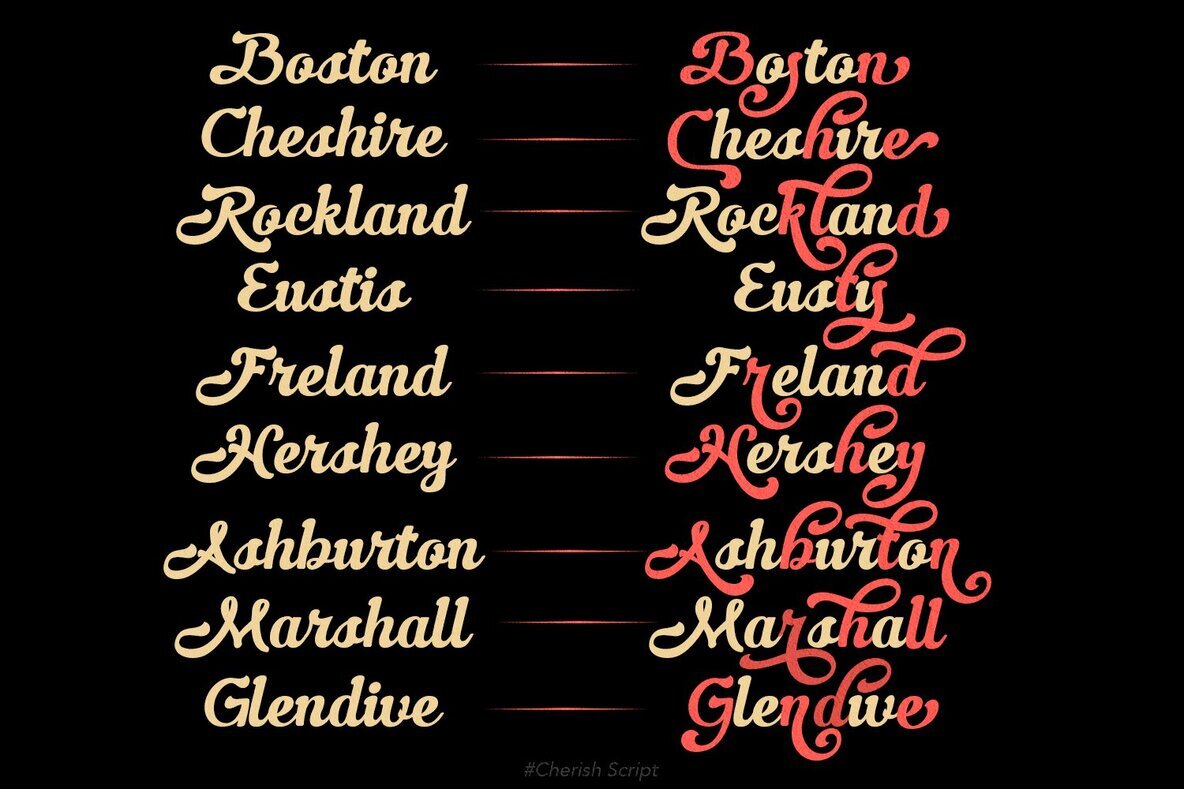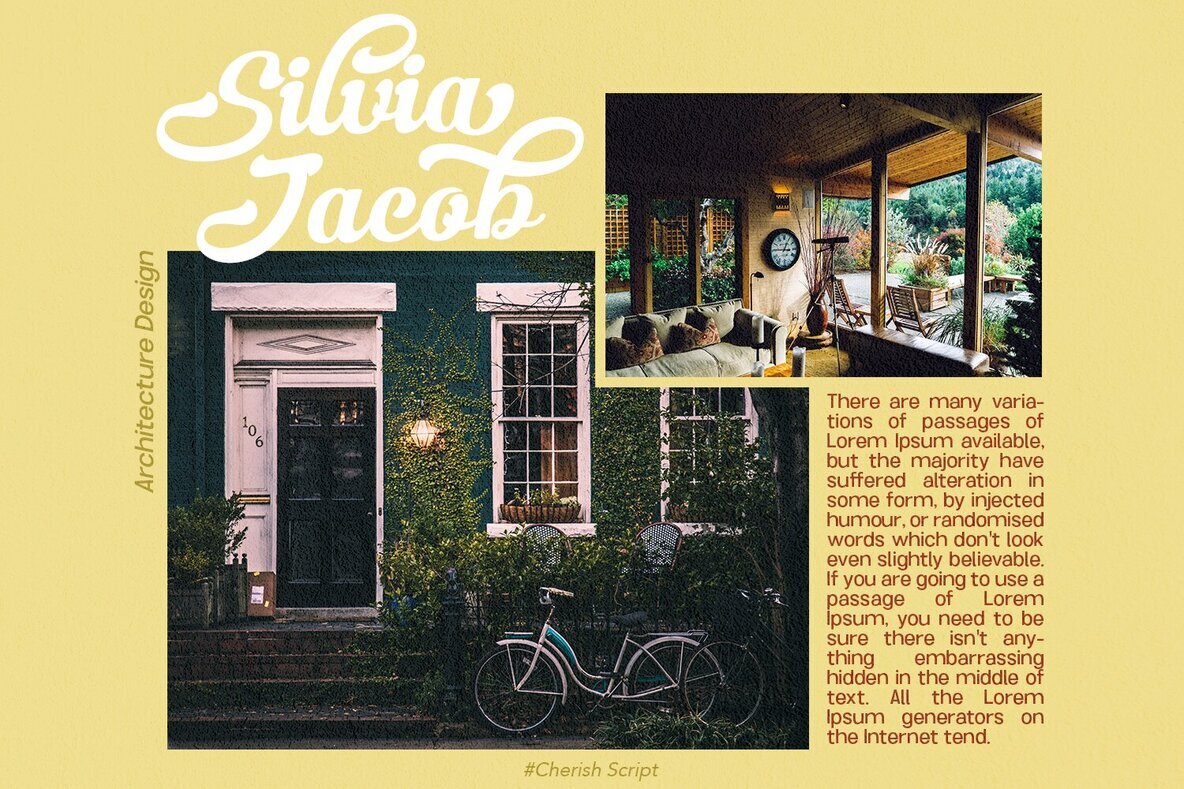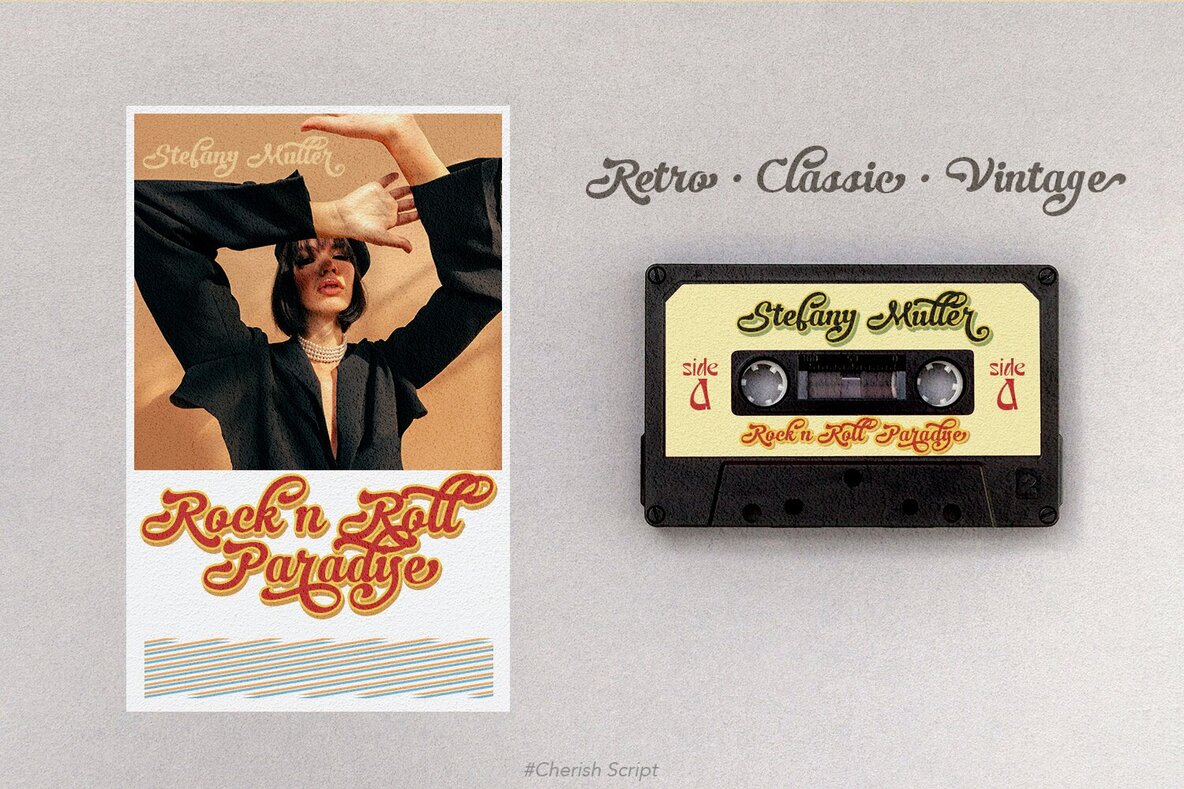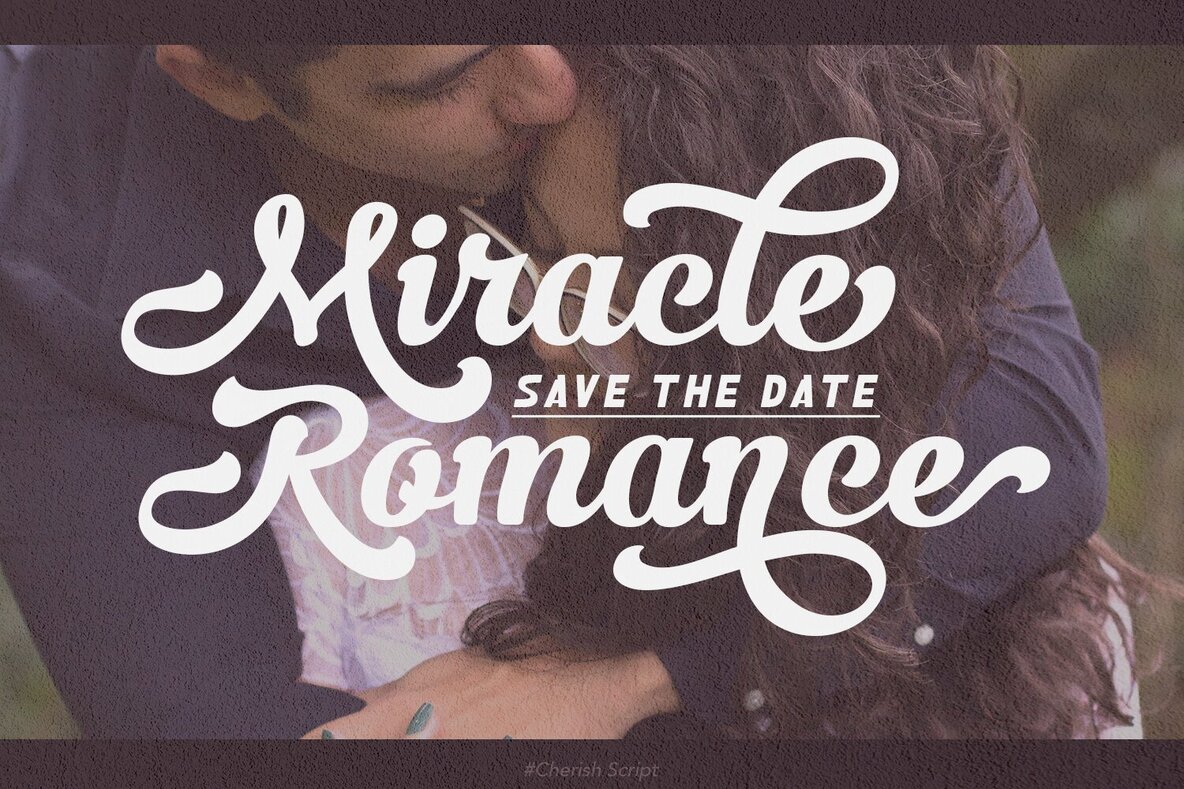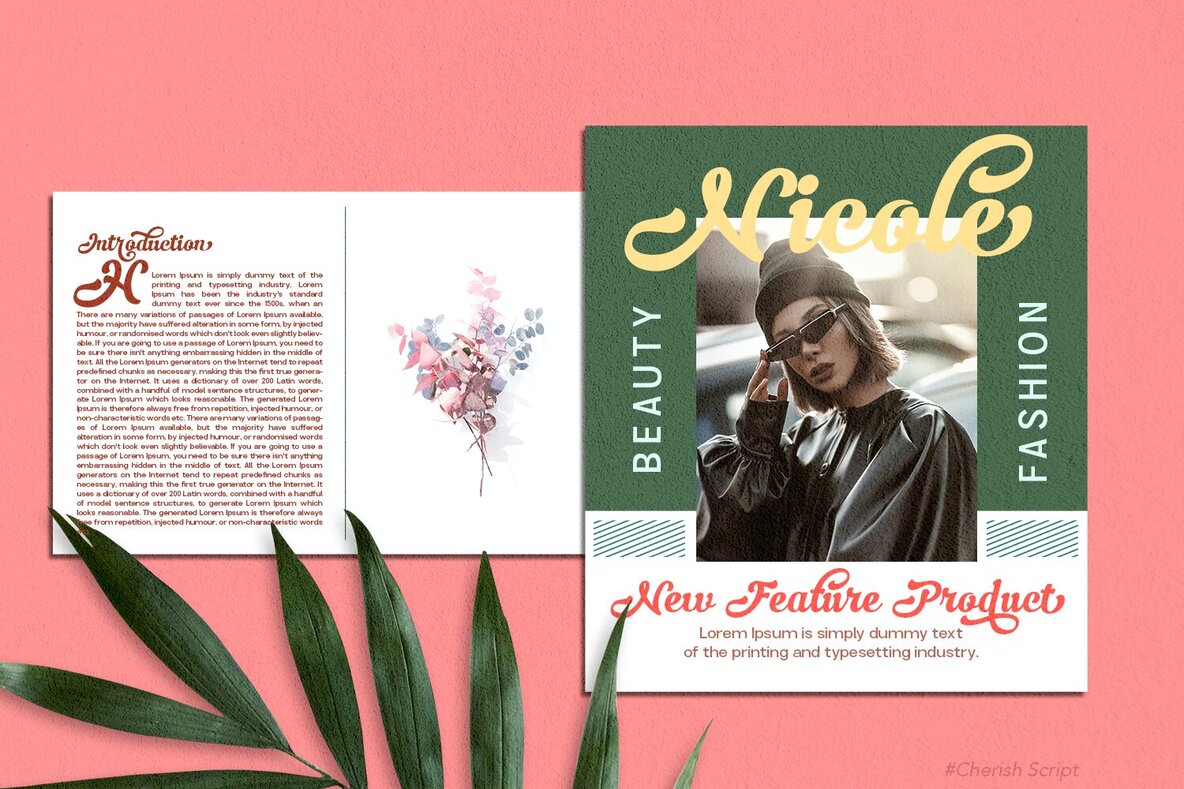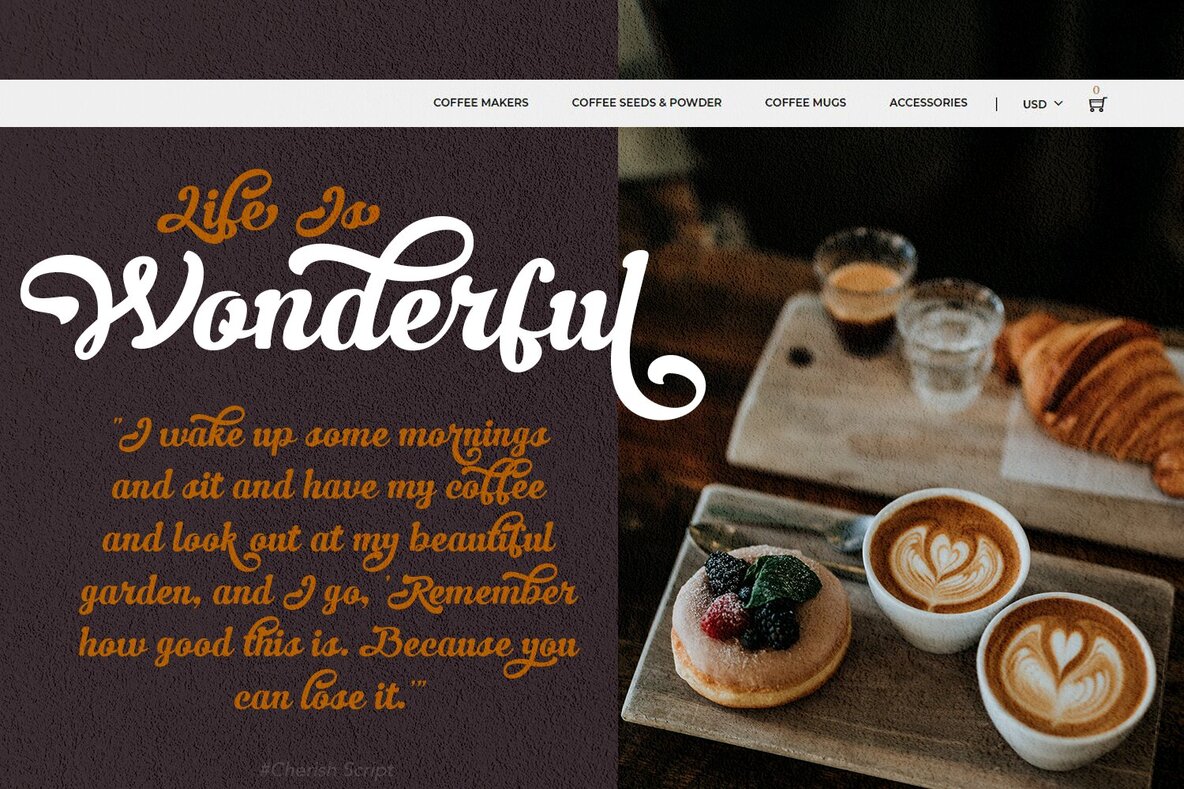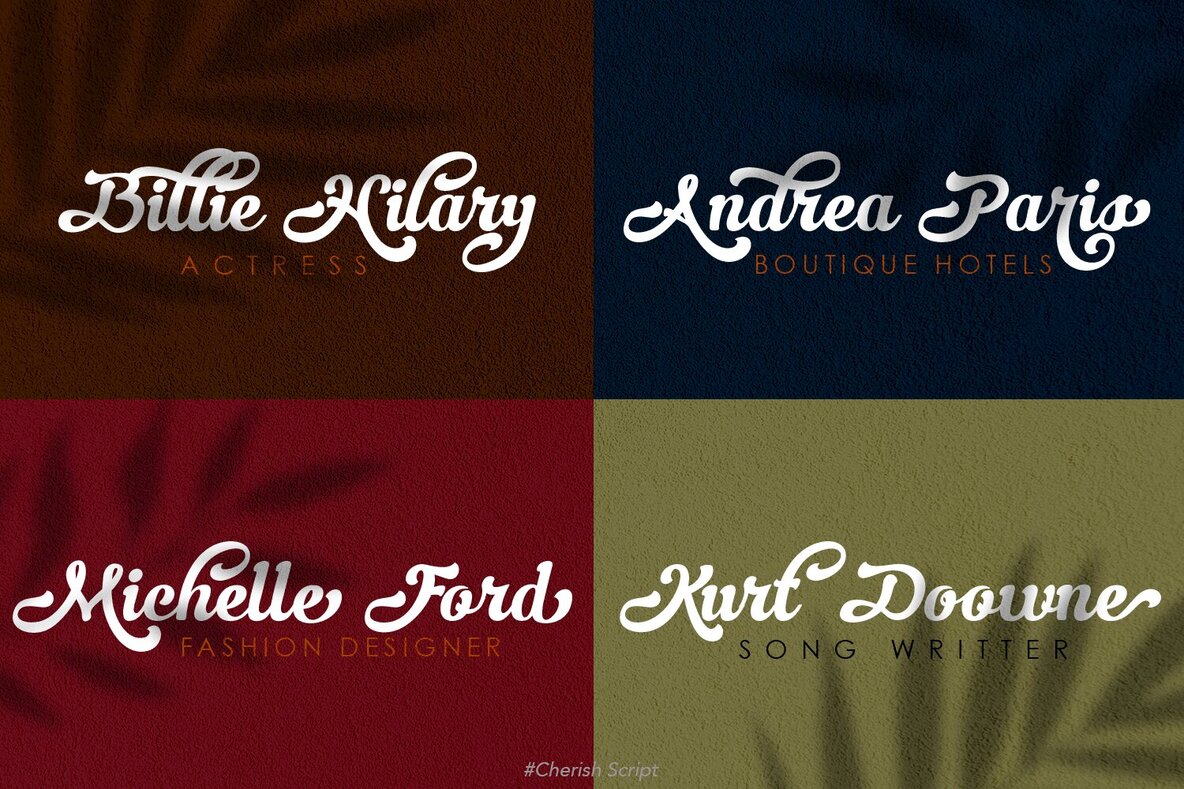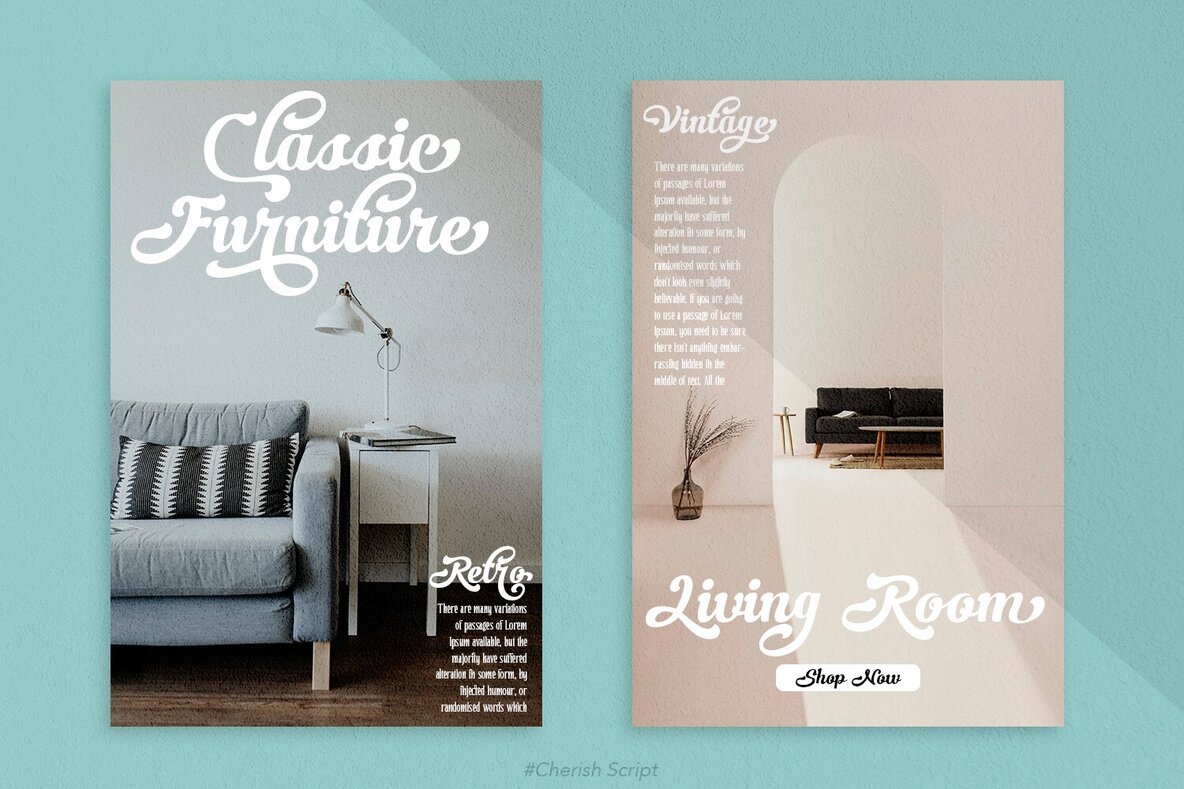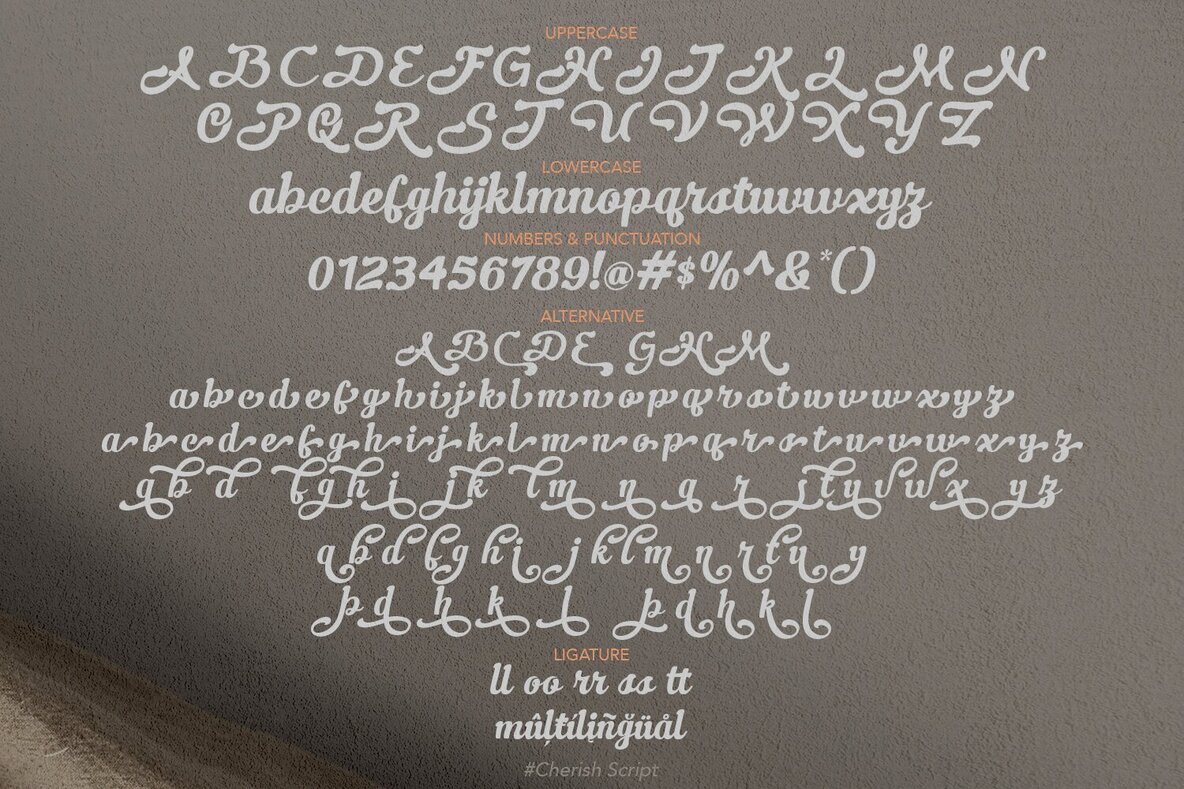
Cheris Font
Cheris is a charming script font characterized by its curly style, offering a myriad of alternatives and ligatures. This versatile font is perfect for enhancing a wide array of design projects, including poster design, book covers, merchandise, fashion brands, advertising, magazines, album covers, wedding invitations, and more.Cheris: Curly Script Font with Alternatives and Ligatures